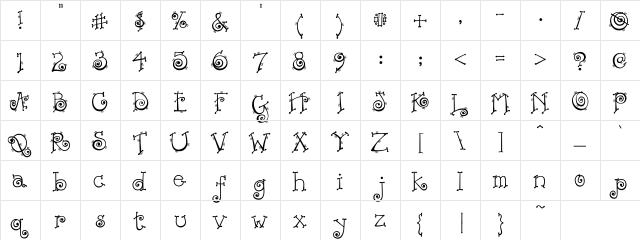
DJ Twirl Regular
Design Context for DJ Twirl Typeface
DJ Twirl is a composed and adaptable typeface that performs quietly and consistently across a wide range of design contexts.